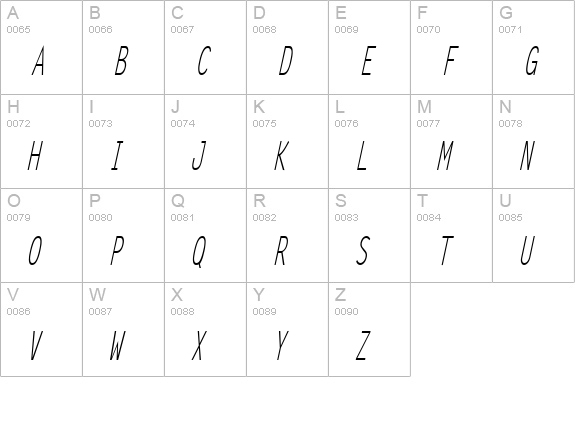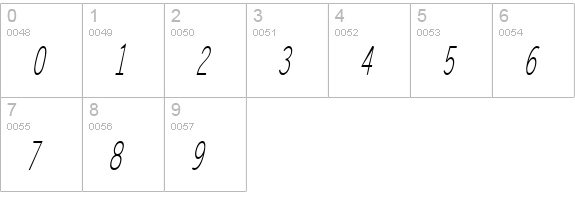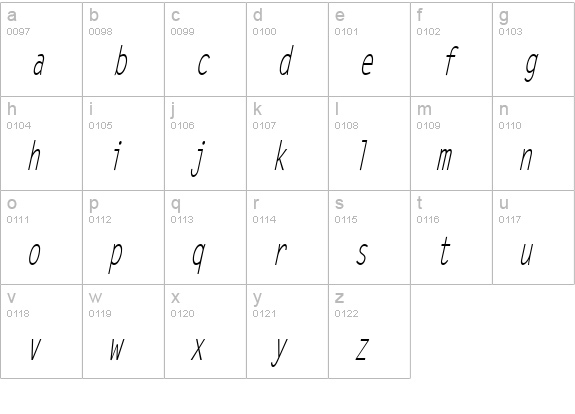
Lechter Thin Italic is a delicate, low-contrast, italic variant in the Lechter typeface family \xE2\x80\x94 well suited to fashion editorial, minimal branding, and high-contrast display.
Lechter Thin Italic is a sleek and sophisticated font that effortlessly combines elegance with modernity. Its thin and delicate strokes exude a sense of refinement, making it perfect for projects that demand a touch of sophistication. The italicized design adds a subtle sense of movement and grace to any text, making it visually captivating and engaging. This font is not only visually stunning but also incredibly versatile. Whether you're designing a logo, creating eye-catching headlines, or crafting elegant invitations, Lechter Thin Italic is sure to make a lasting impression. Its clean and crisp letterforms are easy to read, ensuring that your message is delivered with clarity and style. What sets Lechter Thin Italic apart is its availability as a free download. You can easily access this font at FontsMarket.com, where it is freely available for personal and commercial use. This means that you can add a touch of elegance and sophistication to your projects without breaking the bank. With Lechter Thin Italic, you have the freedom to create stunning designs without any limitations. So, whether you're a professional designer or someone with a passion for typography, Lechter Thin Italic is a must-have font in your collection. Its timeless beauty and versatility make it a valuable asset for any creative endeavor. Download this font today from FontsMarket.com and let your imagination run wild with the endless possibilities it offers.